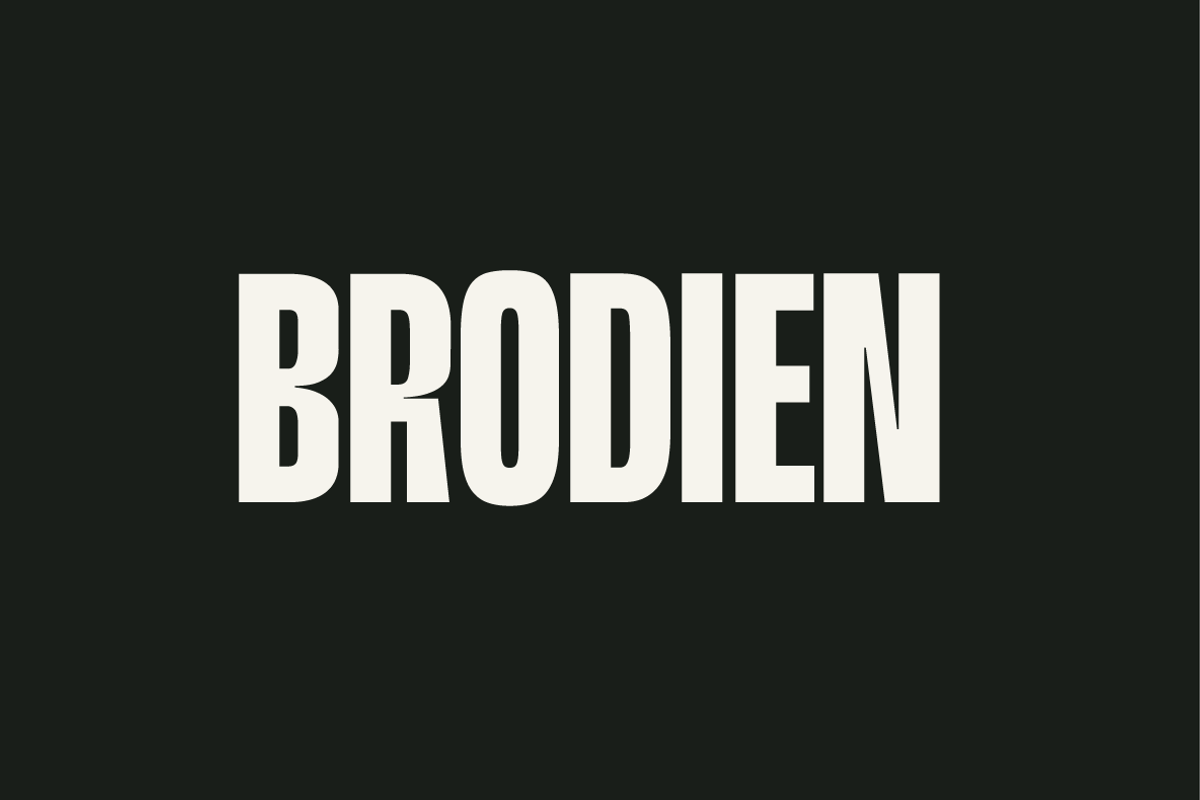
The condensed design of Brodien Condensed makes it ideal for fitting large amounts of text into limited spaces while still maintaining excellent readability. Whether you're working on a corporate brand, an event flyer, or a creative marketing campaign, this font will give your typography a sharp and polished appearance.